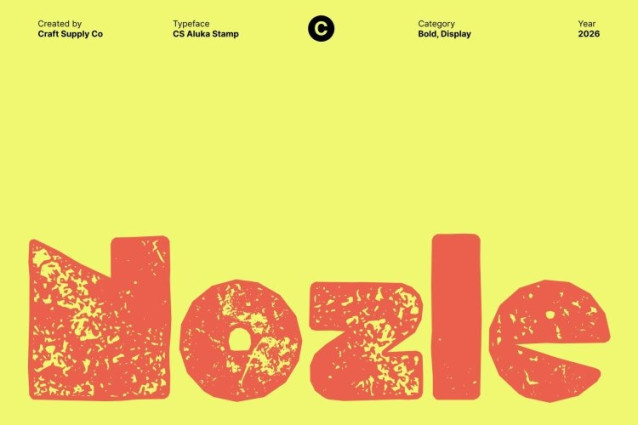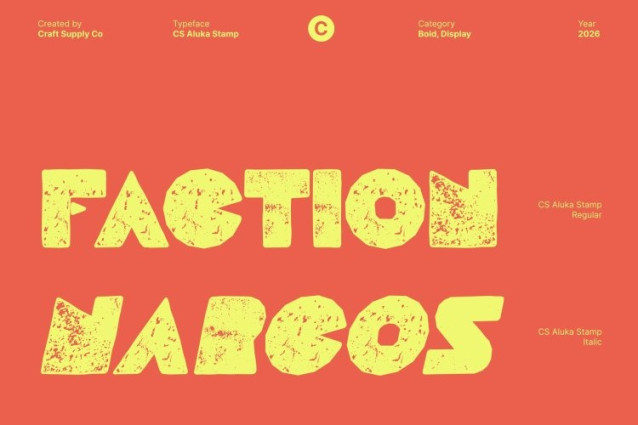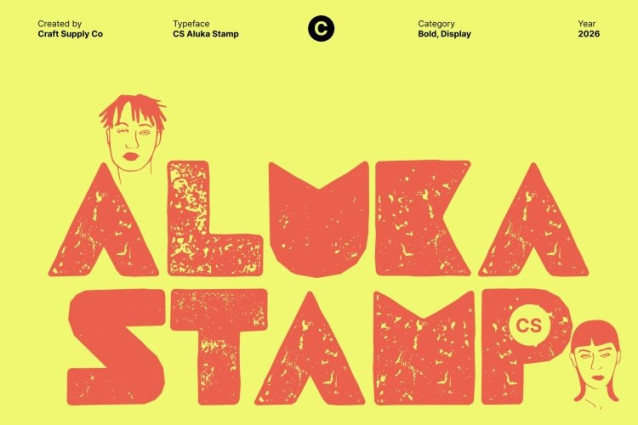
CS Aluka Stamp Font This is a bold modern sans serif font built on clean geometric foundations and softened with friendly, approachable shapes. Its confident structure delivers clarity and strength, while subtle curves and balanced proportions keep the tone warm, accessible, and contemporary.
Geometric Structure with Playful Energy
The font’s geometric construction gives it a solid, modern backbone, making it highly legible and visually impactful. At the same time, its slightly playful forms inject personality and movement, preventing the design from feeling rigid or overly technical. This balance makes this font feel lively, confident, and expressive.
Artistic Stamp Texture for Expressive Depth
The stamp texture adds a layer of artistic imperfection that transforms the clean geometry into something more organic and human. Slightly rough edges and textured surfaces evoke traditional print and handcrafted processes, giving the font visual depth, character, and a subtle vintage touch without losing its modern appeal.
Perfect for Editorials, Branding, and Digital Projects
This is ideal for editorials, branding, posters, packaging, and digital media that seek a bold modern voice with expressive texture. Whether used in headlines, logos, or creative layouts, it delivers a striking blend of geometric precision and artistic authenticity perfect for designs that want to feel modern, bold, and full of character.